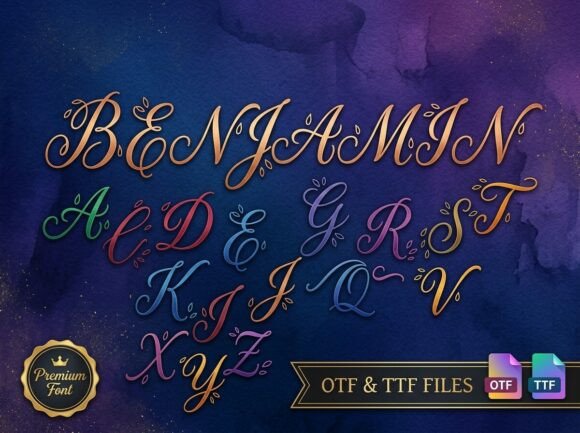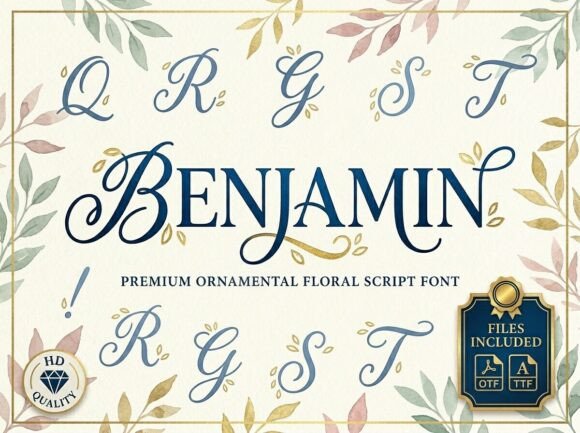
The Magical World of Benjamin Font
I’ll never forget the design struggle I faced while working on a fantasy book cover project. My client wanted a font that would transport readers to a cosmic world, full of magic and mystery. I scoured the internet, tried countless fonts, but nothing seemed to fit the bill. That was until I stumbled upon Benjamin Font – a premium calligraphy display font that felt like it was plucked straight from the stars ✨.
A Personal Review of Benjamin Font
- ✨ Unique and Whimsical Design: Benjamin Font boasts an otherworldly charm that adds a touch of magic to any design project.
- ✅ High-Quality Typography: The font is meticulously crafted, with crisp lines and elegant curves that exude sophistication.
- 💫 Cosmic Fantasy Feel: The font’s cosmic fantasy theme is perfect for creating captivating book covers, gaming titles, event branding, and digital storytelling.
While Benjamin Font is an exceptional font, there are a few minor quirks to be aware of:
- ⚠️ Limited Use in Body Text: Due to its decorative nature, Benjamin Font is best suited for headings and titles, rather than body text.
- 🤔 Some Glyphs Require Manual Adjustment: Certain glyphs and special characters may require manual adjustment to ensure optimal spacing and alignment.
The Story Behind Benjamin Font
Benjamin Font was designed by a team of creatives who sought to capture the essence of cosmic fantasy in a typographic form. Inspired by the stars, galaxies, and mysteries of the universe, they crafted a font that would transport readers to a world of wonder and magic. The result is a truly unique and captivating font that ignites the imagination ✨.
| What type of projects is Benjamin Font best suited for? | Benjamin Font is ideal for visionary book covers, atmospheric gaming titles, whimsical event branding, and high-impact digital storytelling. |
| Can I use Benjamin Font for body text? | While possible, Benjamin Font is best suited for headings and titles due to its decorative nature. |
| Does Benjamin Font support OpenType features? | Yes, Benjamin Font supports OpenType features, including stylistic alternates and glyphs. |